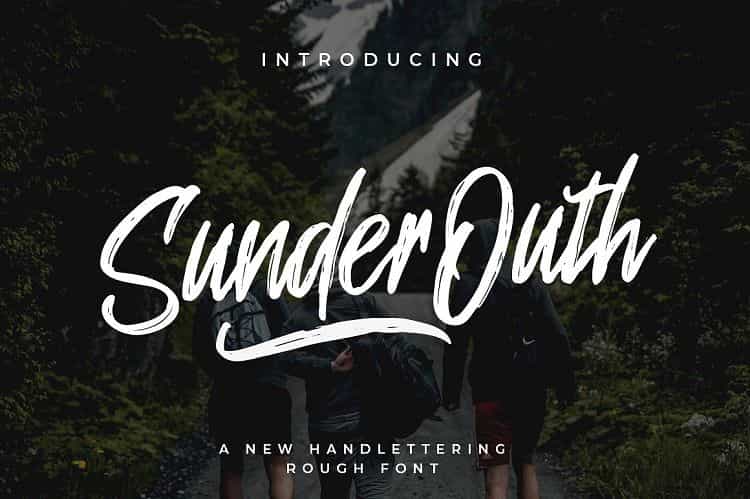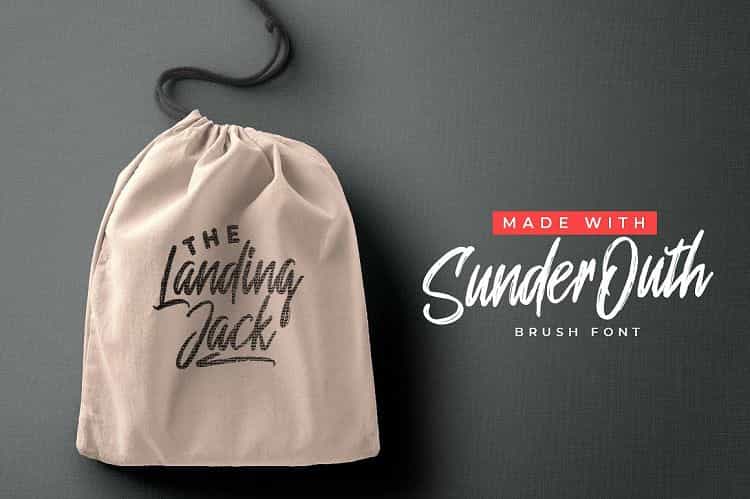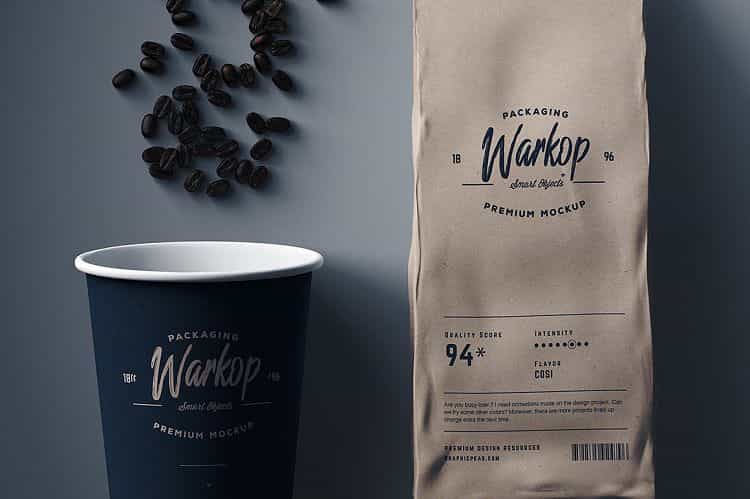
Discover Sunder Outh Brush Font, part of the Brush collection—a versatile and unique font perfect for adding a personal touch to your projects. Download it for free and enjoy crafting designs with style, from invitations to social media posts. This font is available exclusively for personal use, giving you the freedom to create without limits. Unlock your creativity with Sunder Outh Brush Font today!
Introducing Sunder Outh Font. It is produced and shared by Indotitas. Sunder Outh is a tough brush script font with a neat style and nice flow. This font is perfect for your next creative project, like Logotype, printed quotes, invitations, cards, product packaging,h headers,, Letterhead , Poster Apparel Design Label and etc.